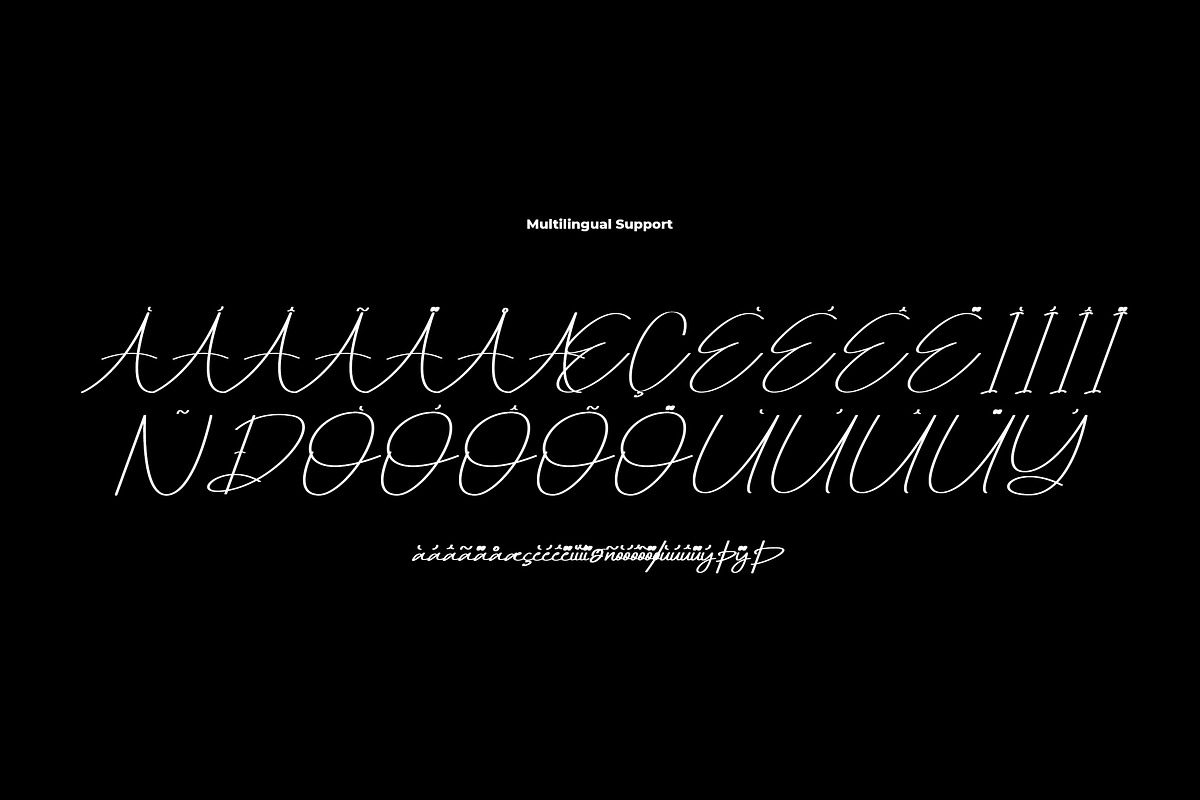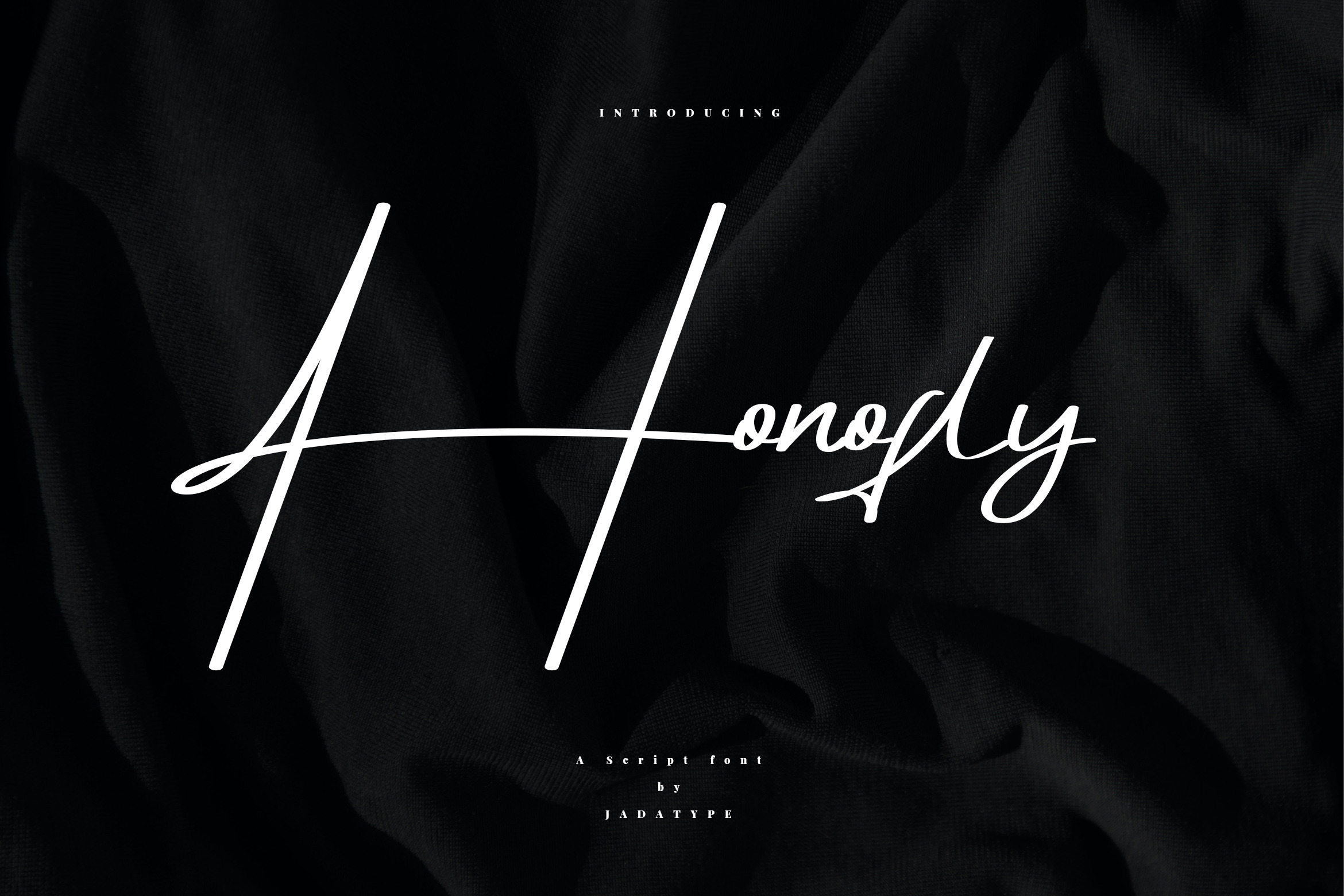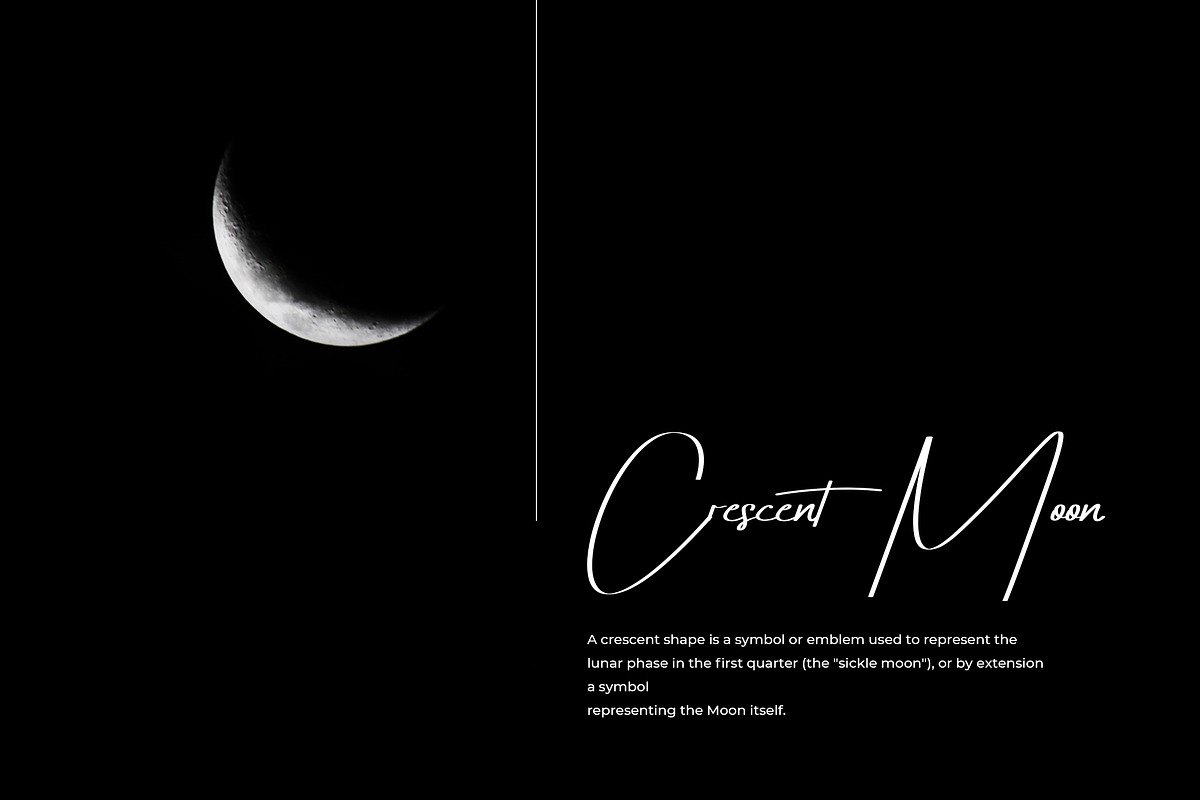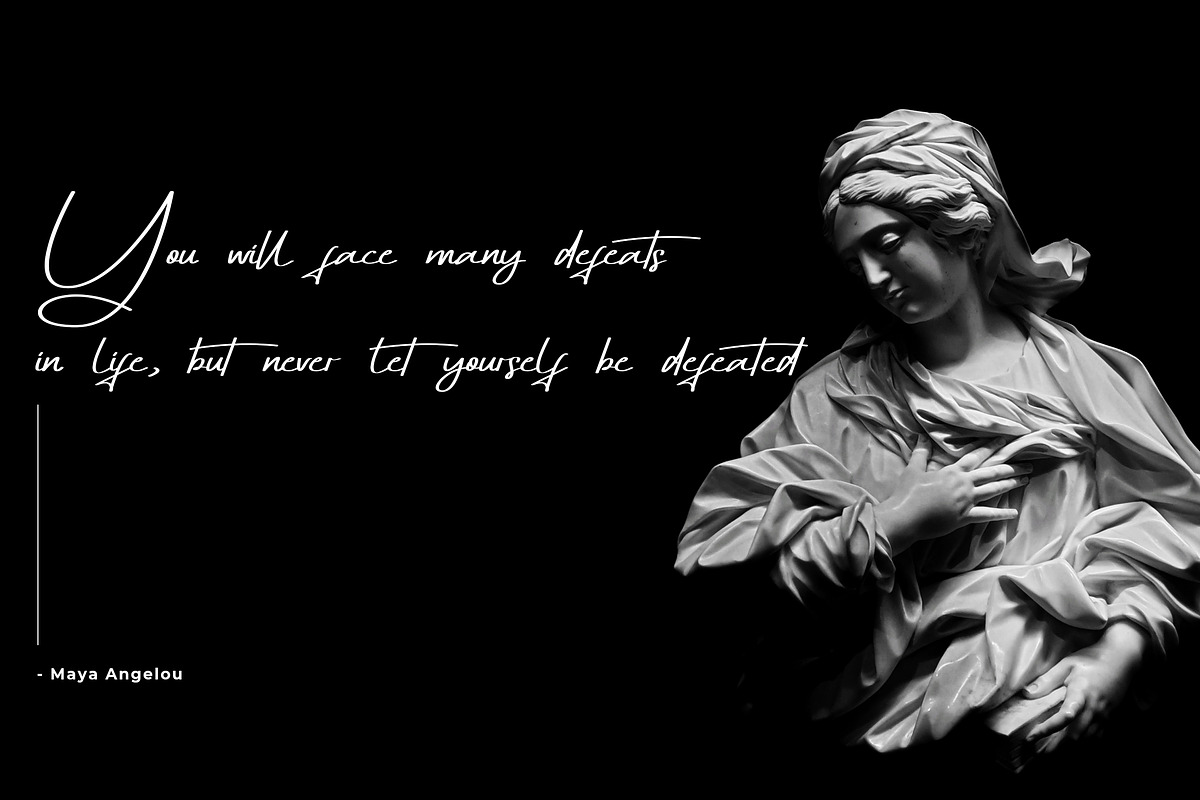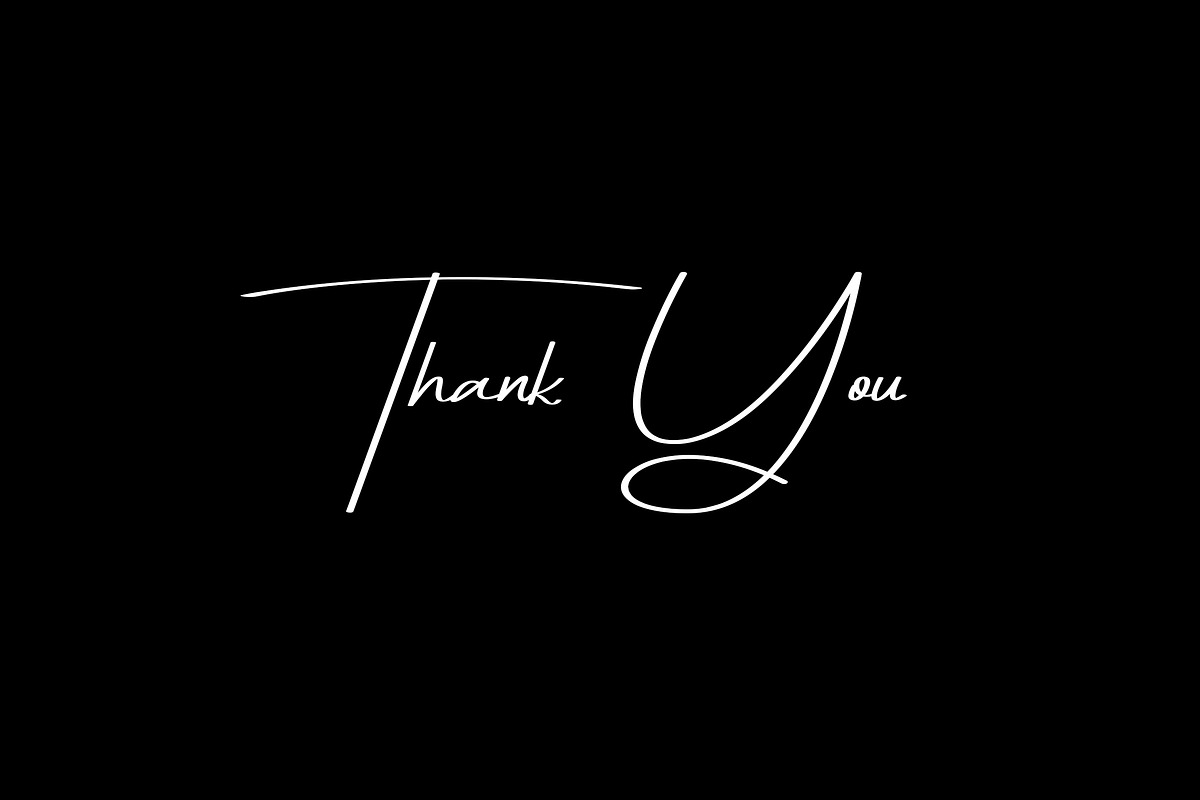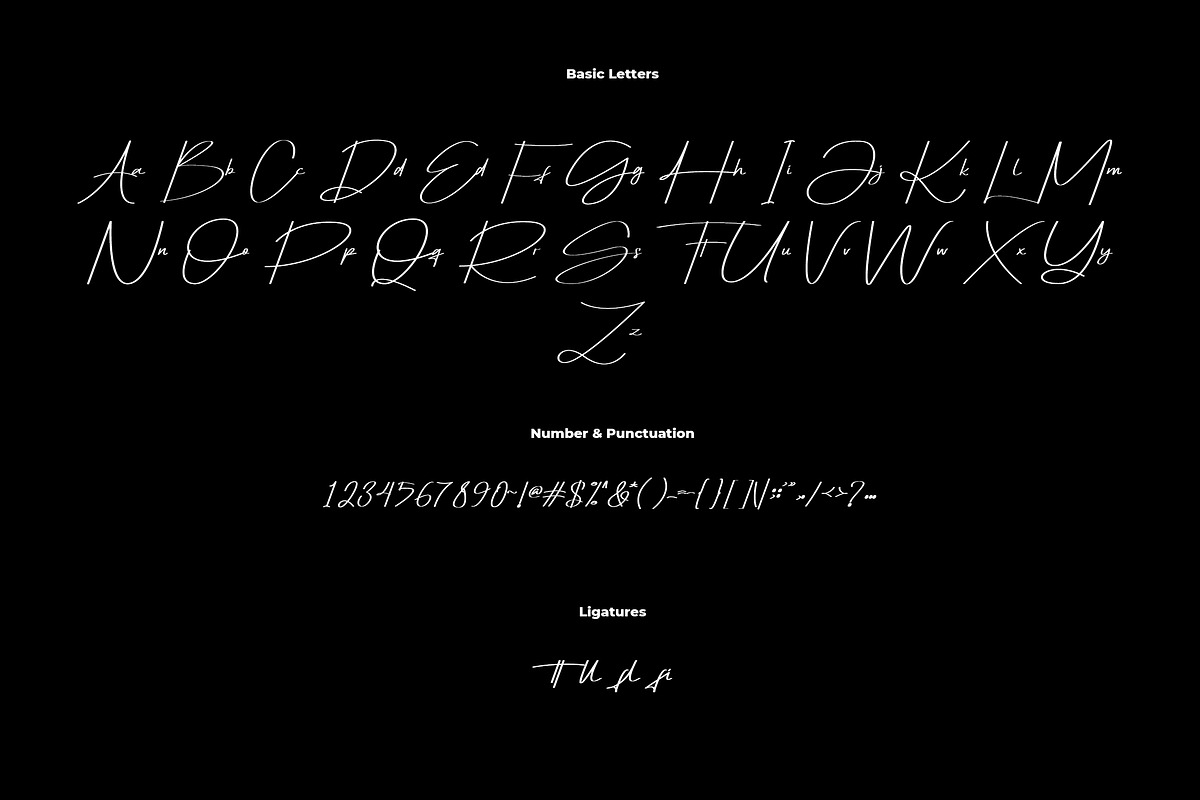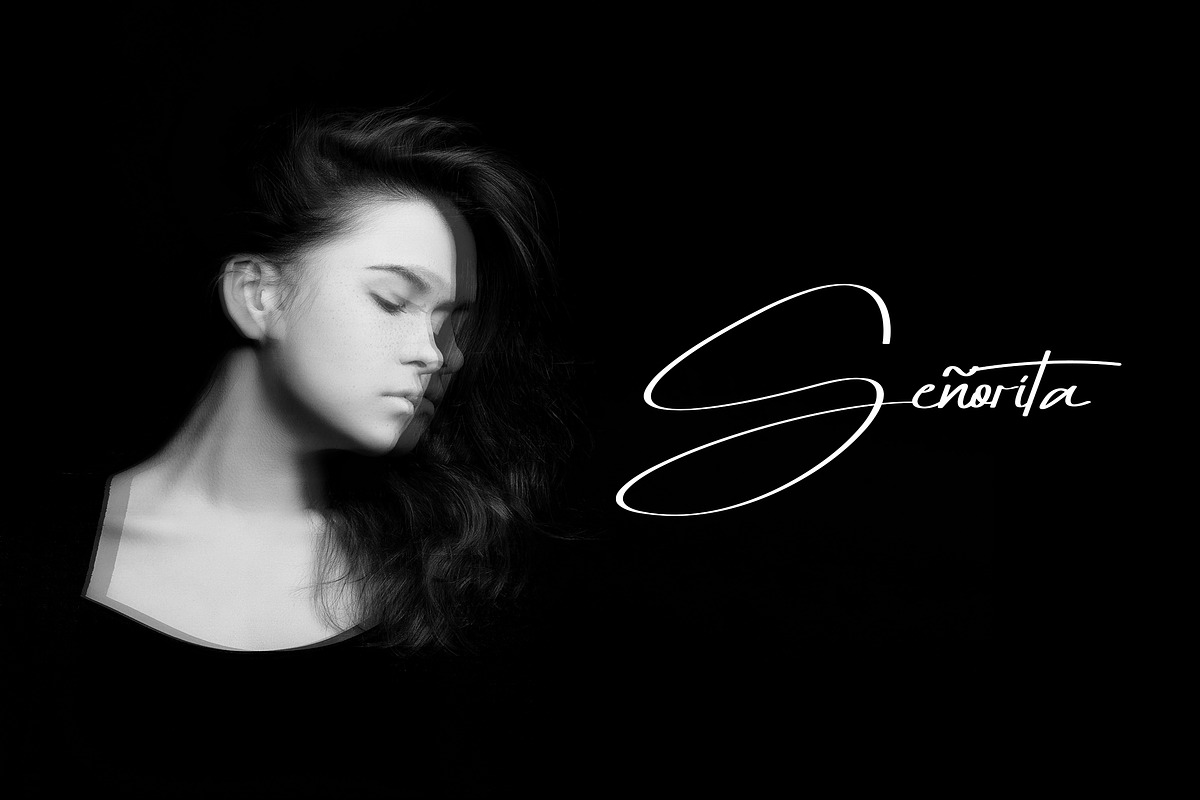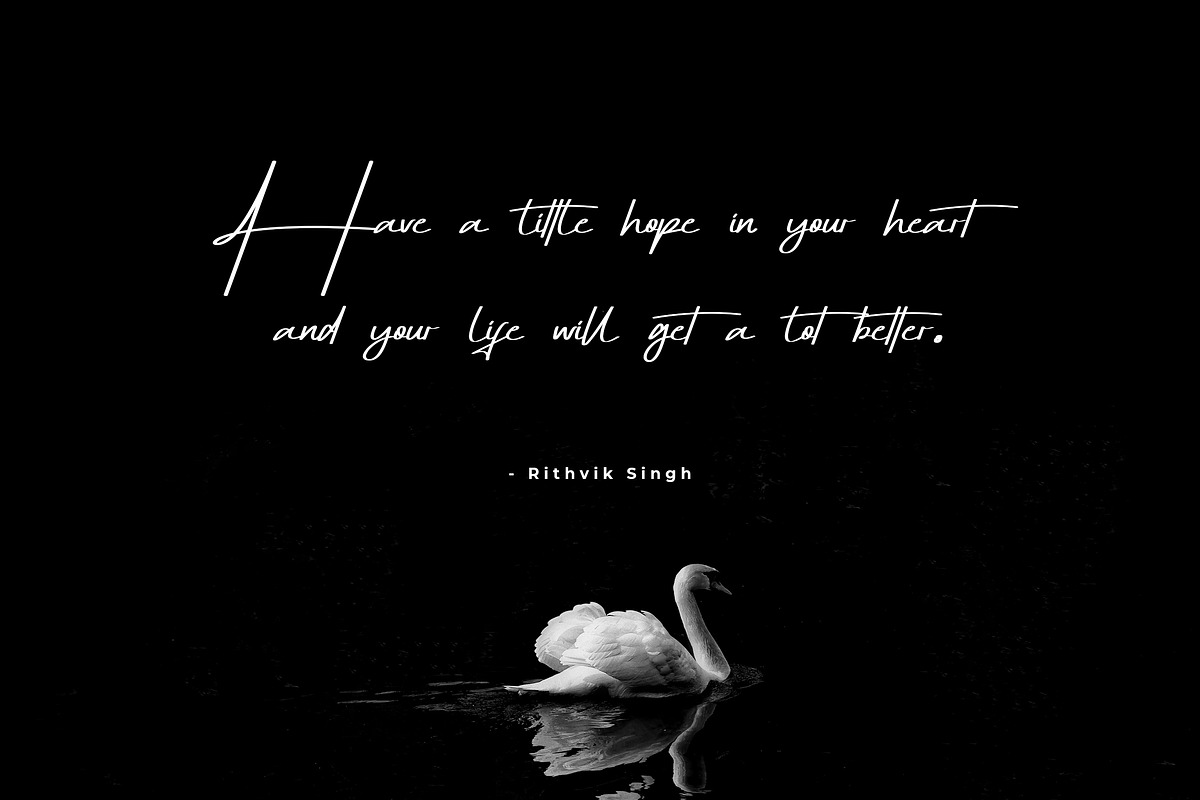
Honofly Font | Modern Script
Honofly is a modern script font featuring sleek, flowing lines that add elegance to any design. With full multilingual support, it’s perfect for global projects. Easily installable in Adobe and Affinity applications, Honofly enhances your creative workflow, making it ideal for branding, invitations, and more.